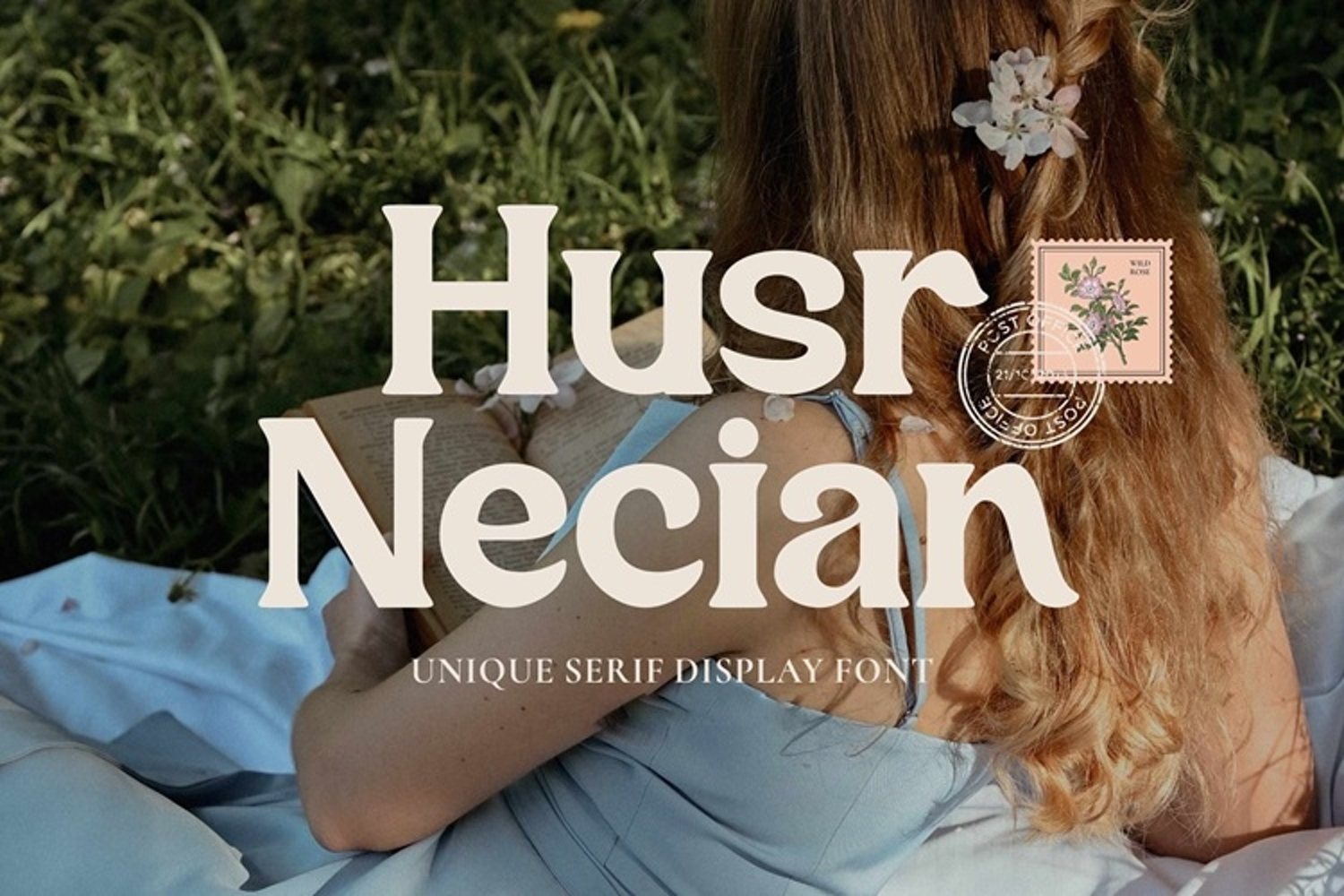
Husr Necian - Bold Serif Typeface
Husr Necian is a bold serif display typeface with a warm, vintage modern character. The letterforms carry substantial weight throughout, with thick, confident strokes and short wedge style serifs that give the design a chunky, grounded feel.
The overall silhouette blends classic serif structure with organic, hand drawn softness, corners are gently rounded rather than sharp, lending an approachable and romantic quality. This font ideal for posters, quotes, branding, logos, magazine headlines, packaging, social media graphics, and any project that calls for a stylish, characterful display voice with a nostalgic yet contemporary edge.